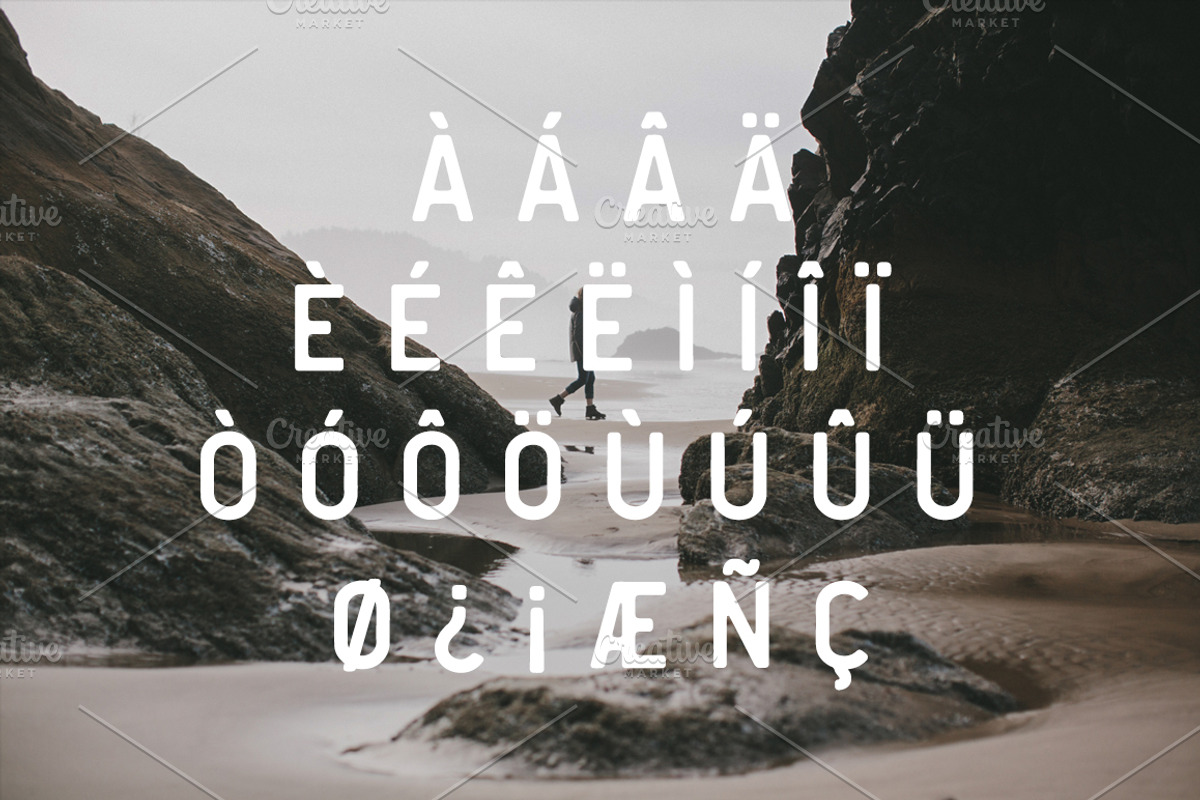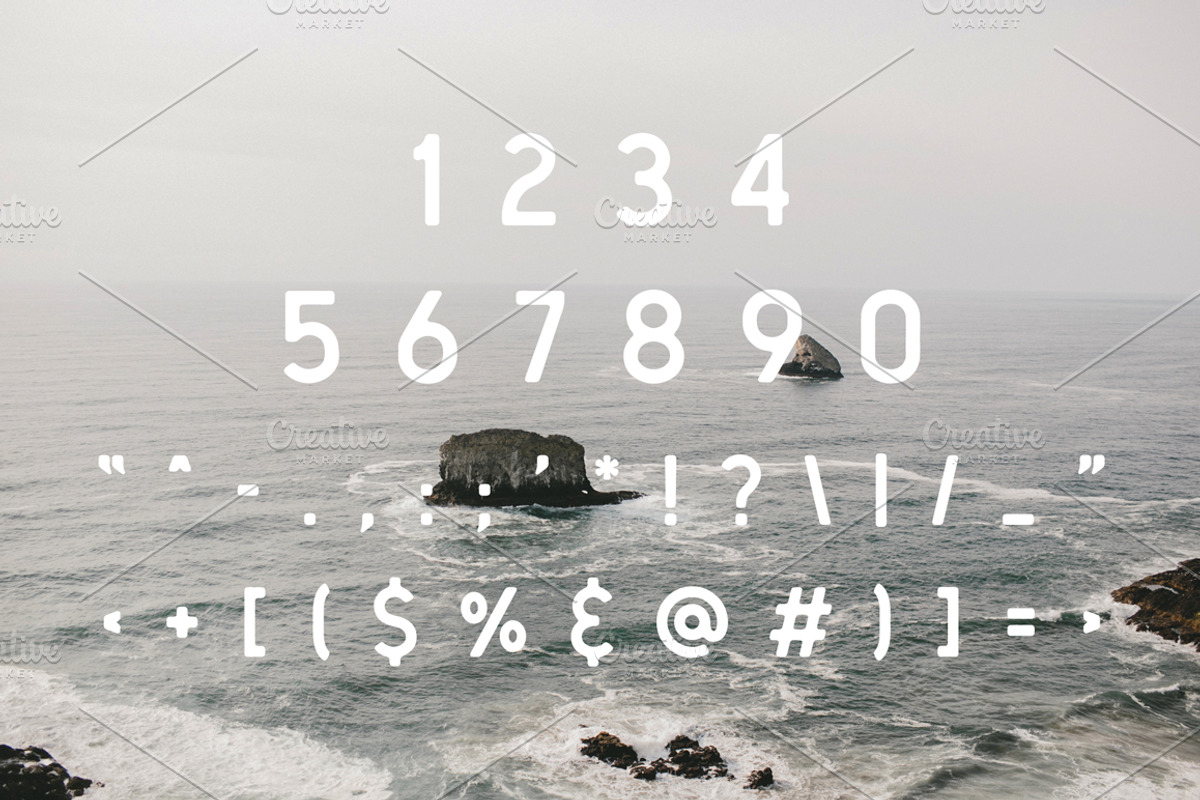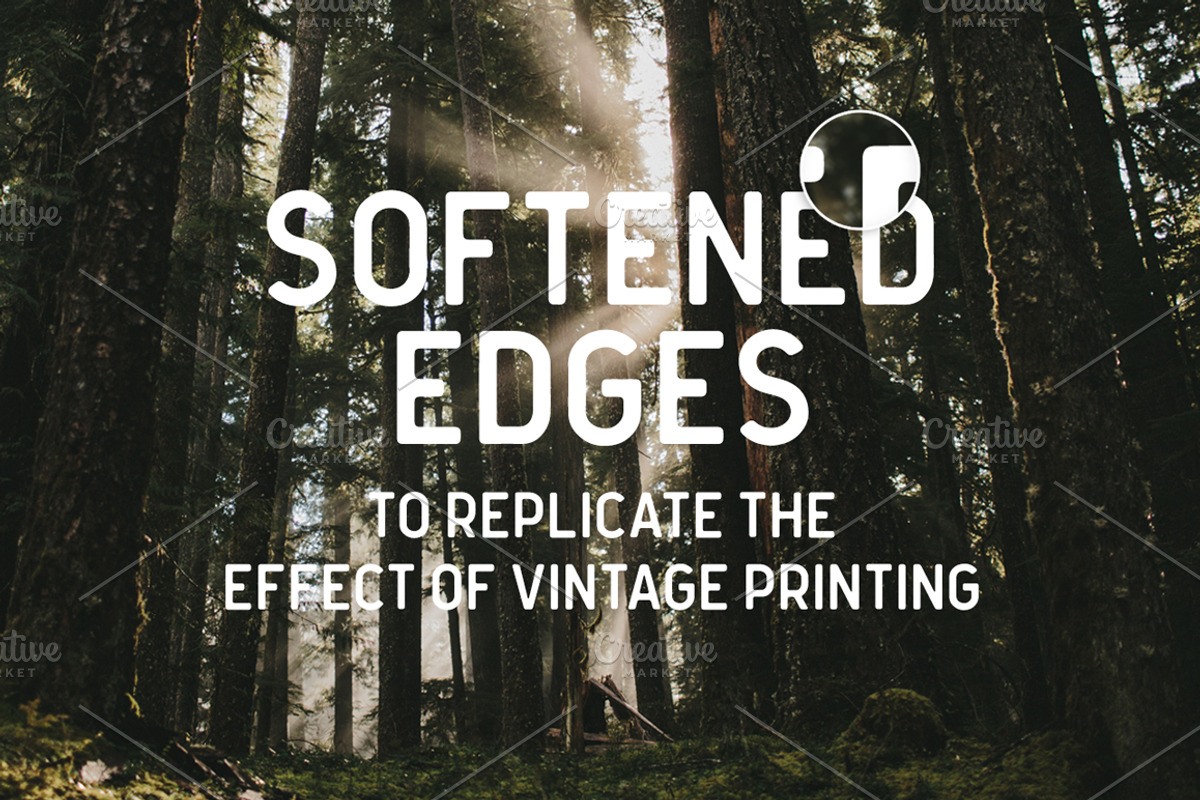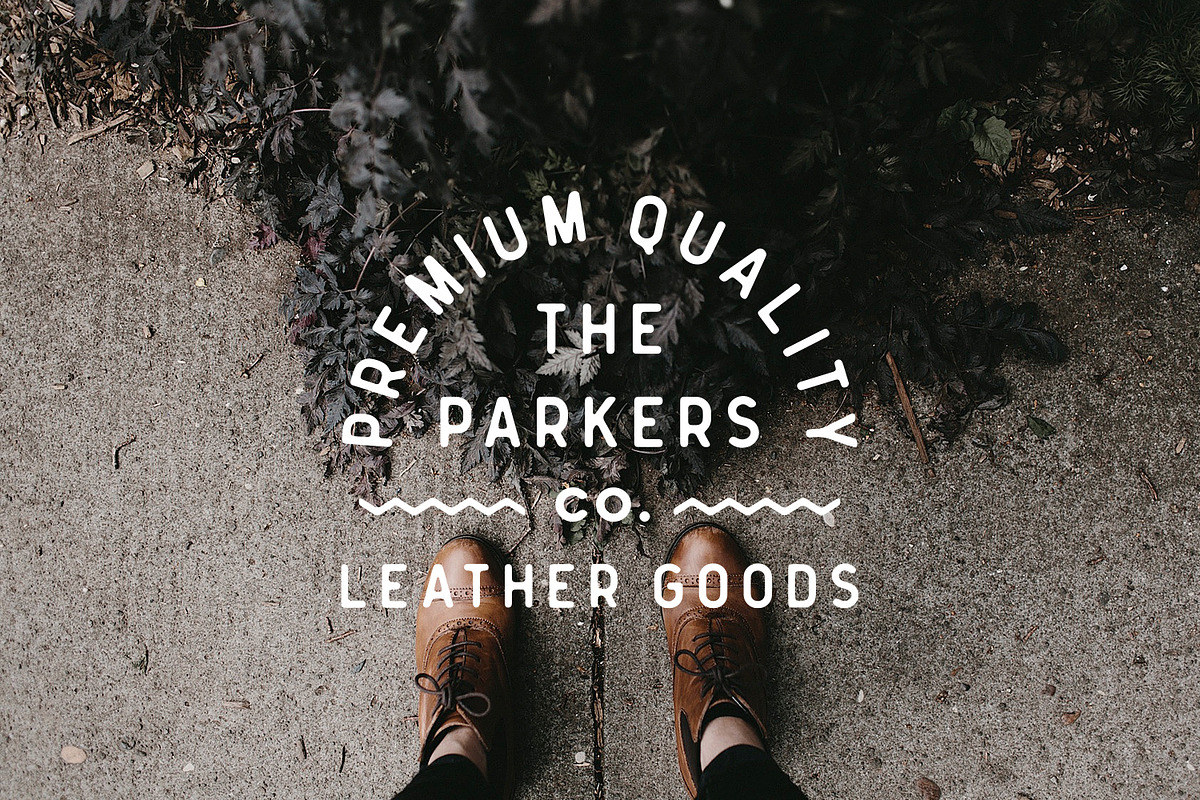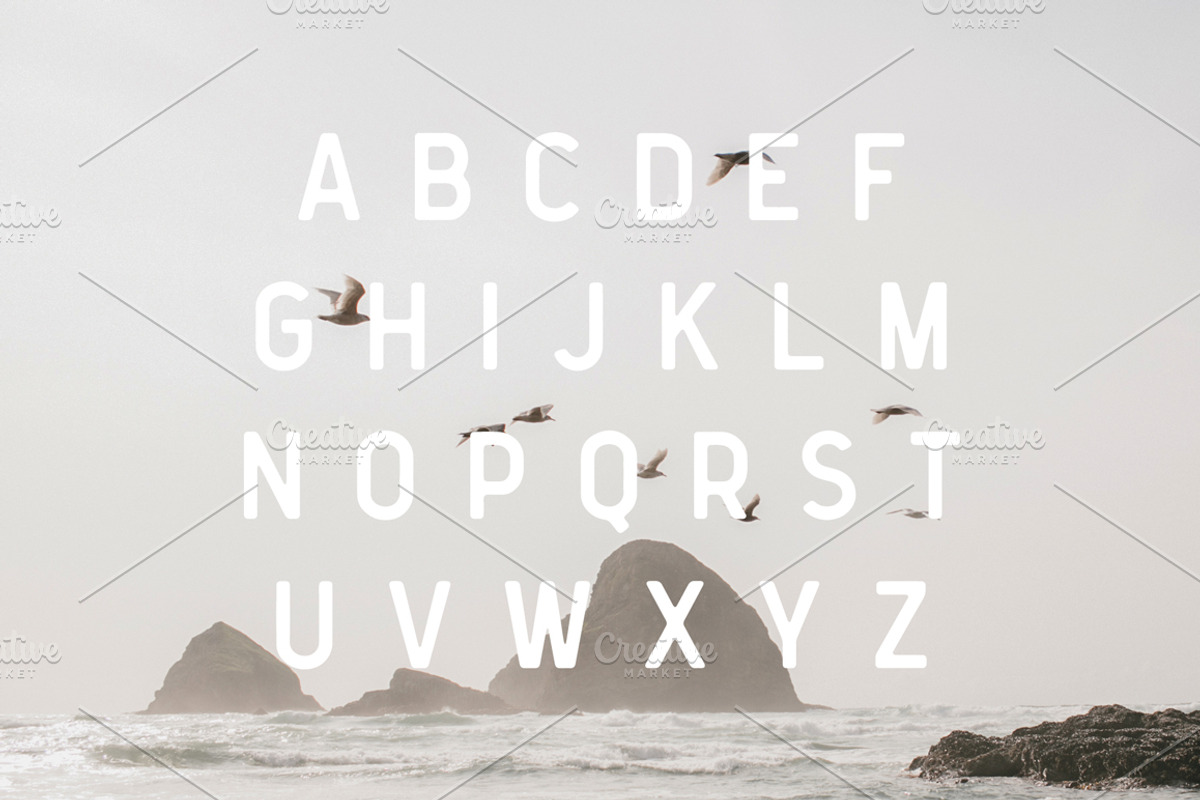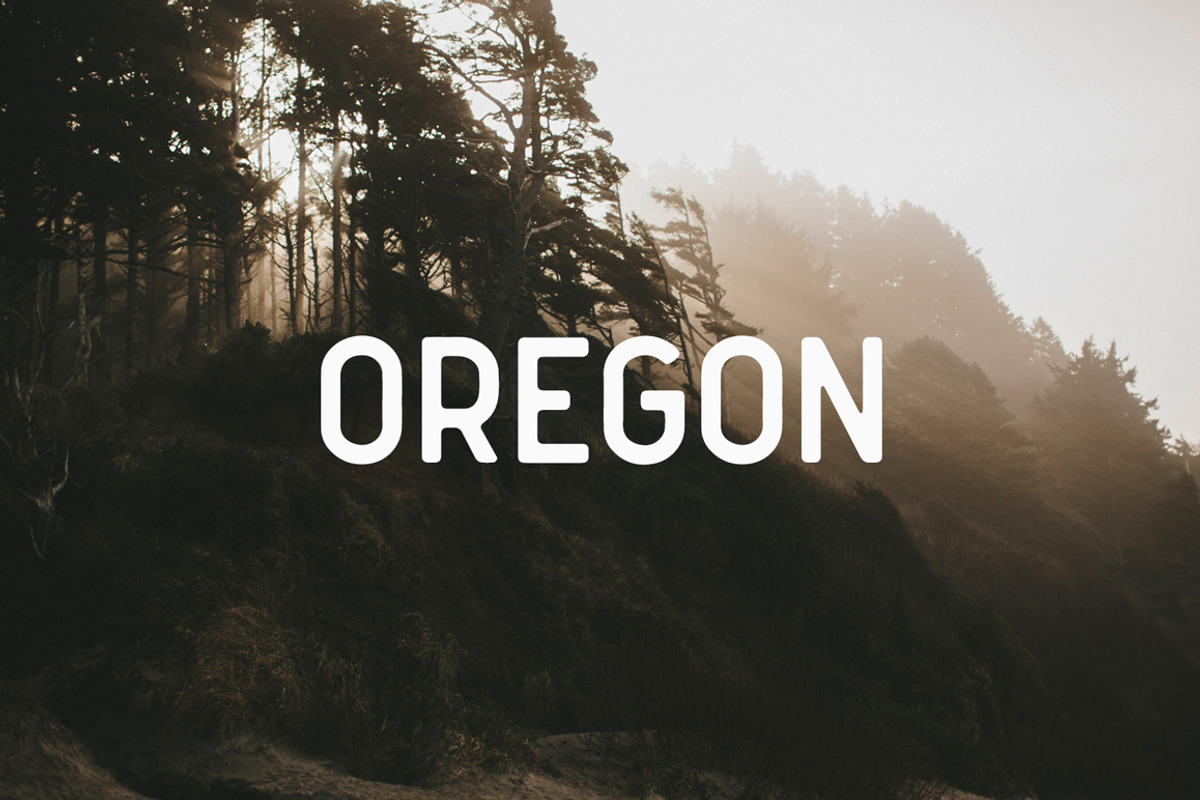
Oregon Font
Oregon Font by Mark van Leeuwen is a font selected for branding, posters, packaging, typography.
- It contains an uppercase alphabet with numbers and symbols.
Why Oregon Font is worth a look
Oregon Font by Mark van Leeuwen fits naturally into Branding, posters, packaging, typography.